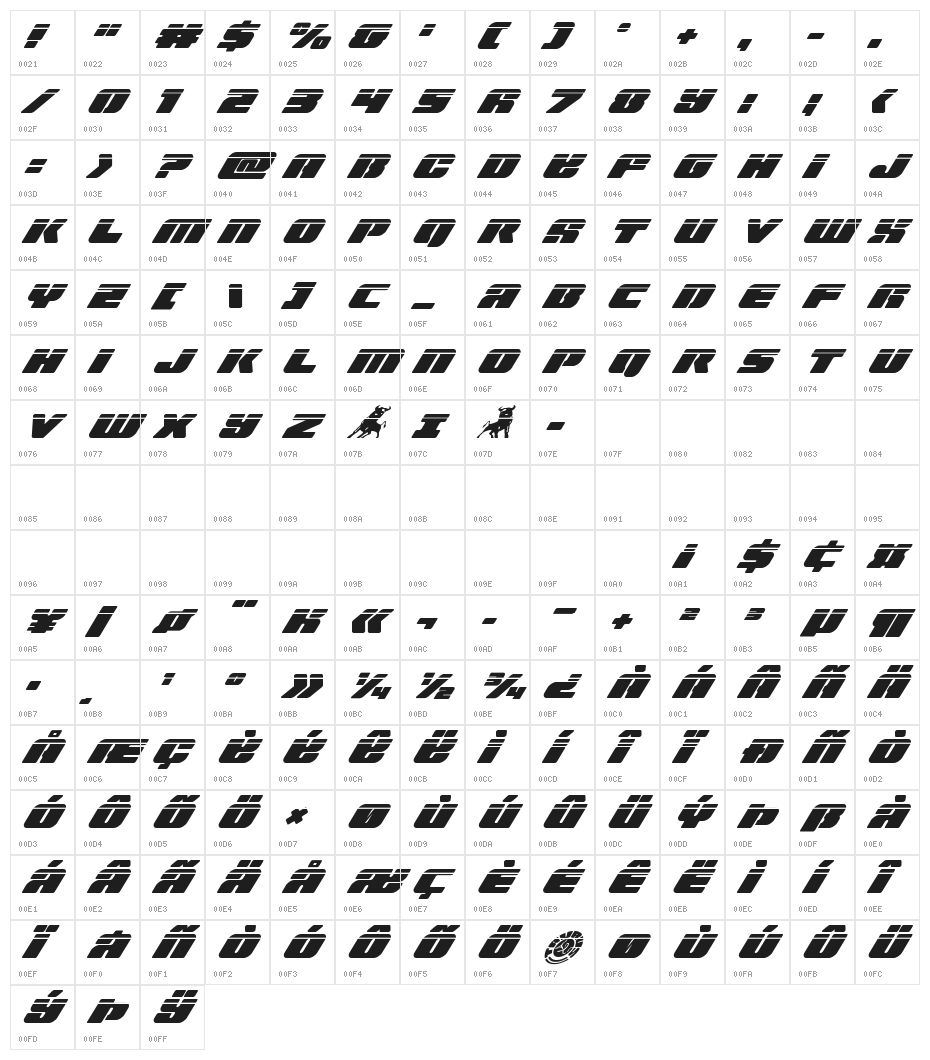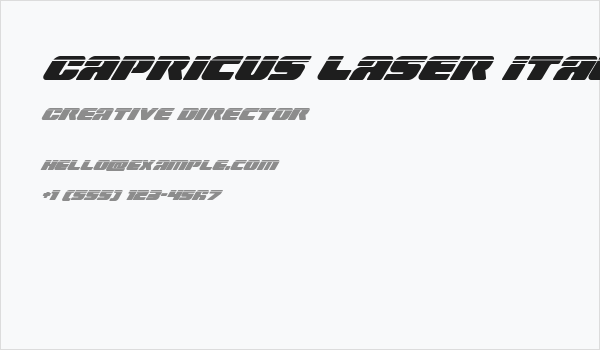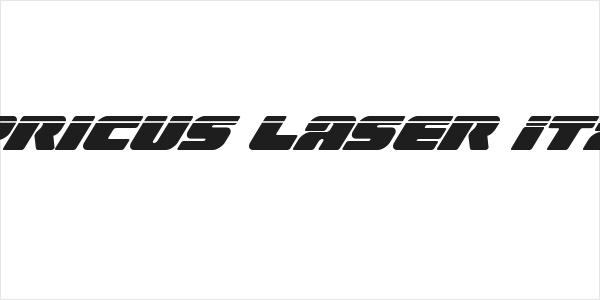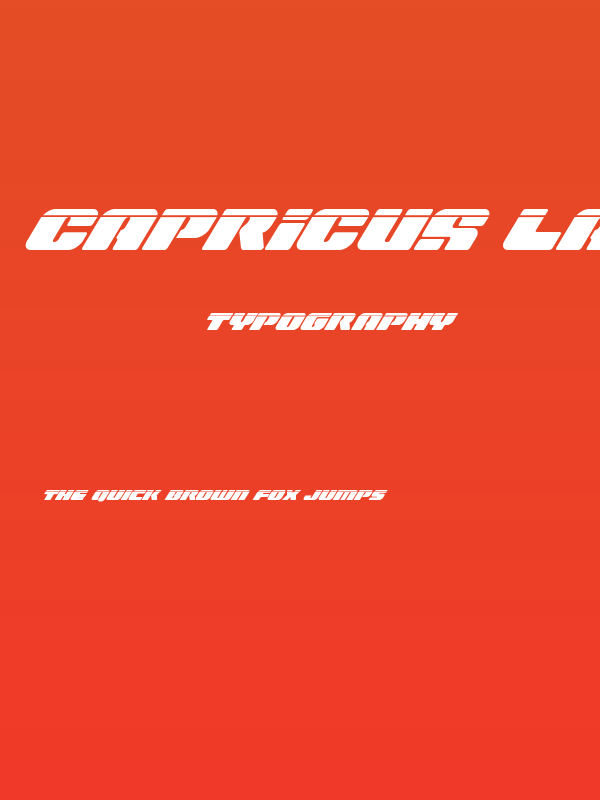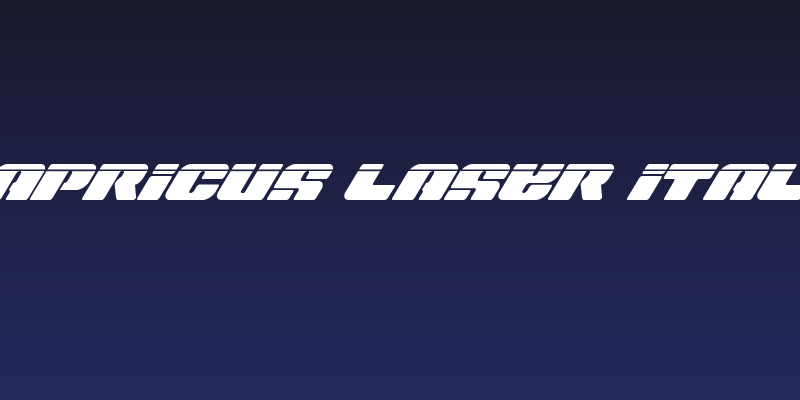
Capricus Laser Italic Font
Capricus Laser Italic Description
This font features a bold, futuristic design with a distinct italic slant, giving it a dynamic and energetic appearance. The characters are constructed with sharp, angular edges and a solid, block-like structure, which conveys a sense of strength and modernity. The uppercase and lowercase letters maintain a consistent style, with the lowercase slightly smaller but equally bold. The numbers and special characters follow the same design principles, ensuring uniformity across all glyphs. The font's unique style makes it ideal for projects that require a strong visual impact, such as technology-related branding or sci-fi themed designs.
| Proposed Projects | Ideal for technology branding, sci-fi themes, video game titles, and futuristic posters. |